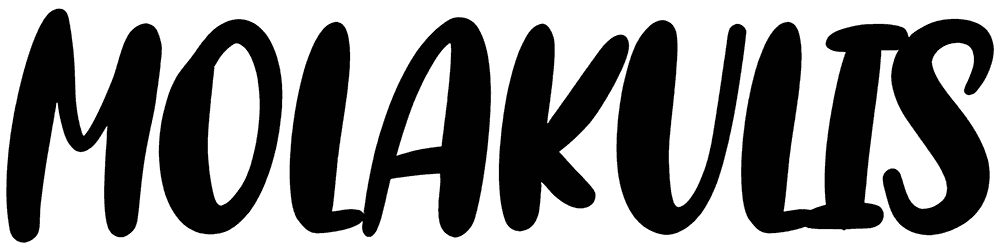
Molakulis Font
Are you seeking a playful letterform to bold your intended words in a funny way? This bulky and modern handwritten font is able to get you there. Lowercase letters, numbers, and punctuation marks of this script font are not available; you can add them to your project to give your text a soft visual and make it level up.